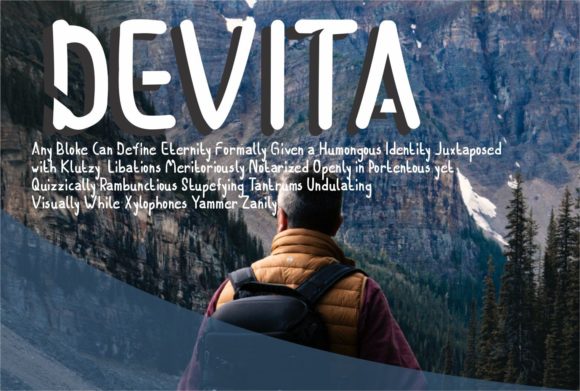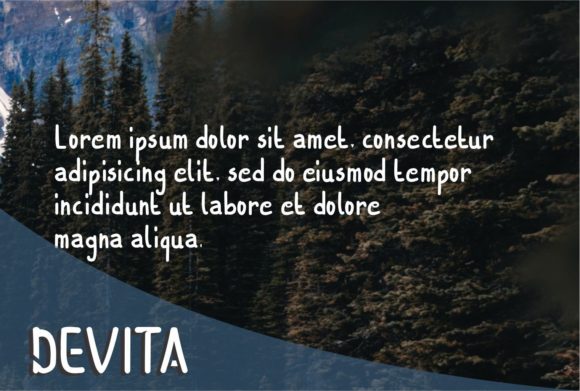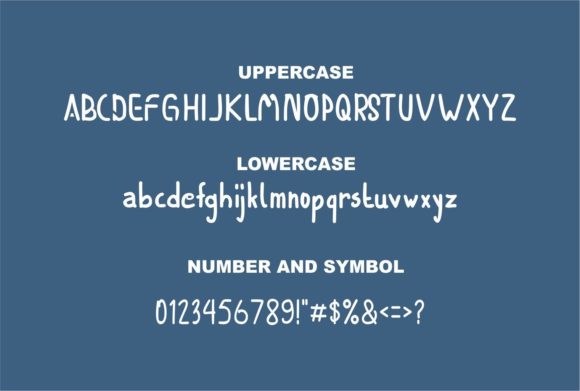
Introducing Devita Font: Elevate Your Designs with a Neat, Modern, and Clean Display Font
In the world of design, typography plays a crucial role in conveying messages, expressing creativity, and capturing the audience’s attention. A well-chosen font can make or break a design project. If you’re a designer, crafter, or simply someone who loves to dabble in creative endeavors, you’re in luck! We’re excited to introduce you to Devita Font, a neat, modern, and clean looking display font that’s sure to inspire your works.
What is Devita Font?
Devita Font is a stylish and versatile display font designed to add a touch of sophistication and elegance to your designs. Its clean lines, modern aesthetic, and precise craftsmanship make it an excellent choice for a wide range of projects, from branding and advertising to packaging and digital media.
Key Features of Devita Font
- Neat and Clean Design: Devita Font boasts a sleek and uncluttered design, making it perfect for creating visually appealing headings, titles, and captions.
- Modern Aesthetic: With its contemporary look and feel, Devita Font is ideal for designers who want to create fresh and modern designs that stand out from the crowd.
- High Versatility: Devita Font can be used for a variety of projects, including logos, brochures, posters, social media graphics, and more.
- Ease of Use: This font is easy to read and works well in both digital and print formats, making it a great choice for designers who work across multiple mediums.
Endless Possibilities with Devita Font
One of the best things about Devita Font is its endless possibilities. Whether you’re designing a logo, creating a social media graphic, or working on a large-scale branding project, this font can help you achieve your creative vision. Here are a few ideas to get you started:
- Branding and Identity: Use Devita Font to create stunning logos, business cards, and letterheads that showcase your brand’s personality and style.
- Advertising and Marketing: Create eye-catching posters, flyers, and social media ads that grab attention and drive engagement.
- Packaging and Product Design: Add a touch of elegance and sophistication to your product packaging with Devita Font.
- Digital Media: Use Devita Font to create engaging social media graphics, blog posts, and website headers that captivate your audience.
Why Choose Devita Font?
With so many fonts available, why choose Devita Font? Here are a few compelling reasons:
- Unique and Exclusive: Devita Font offers a distinctive look that’s sure to set your designs apart from the competition.
- High-Quality Design: This font is crafted with precision and attention to detail, ensuring a professional finish every time.
- Easy to Use and Customize: Devita Font is easy to install and use, and can be customized to fit your design needs.
| Author | Letteria_studio |
In conclusion, Devita Font is a neat, modern, and clean looking display font that’s perfect for designers, crafters, and creatives who want to elevate their designs. With its versatility, elegance, and endless possibilities, this font is sure to inspire your works and help you achieve your creative vision. So why wait? Explore the possibilities of Devita Font today and take your designs to the next level!